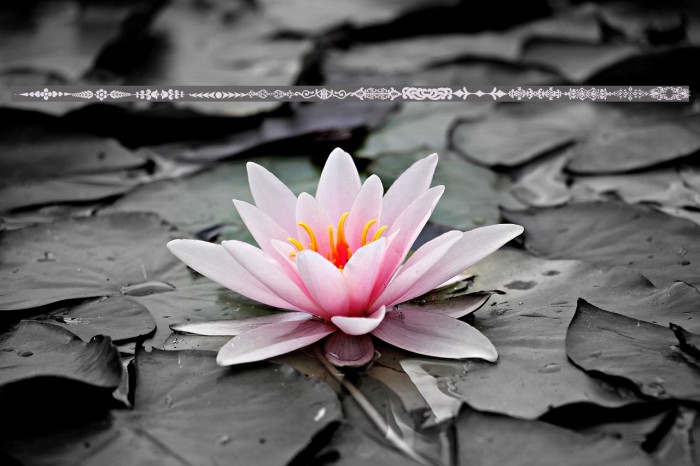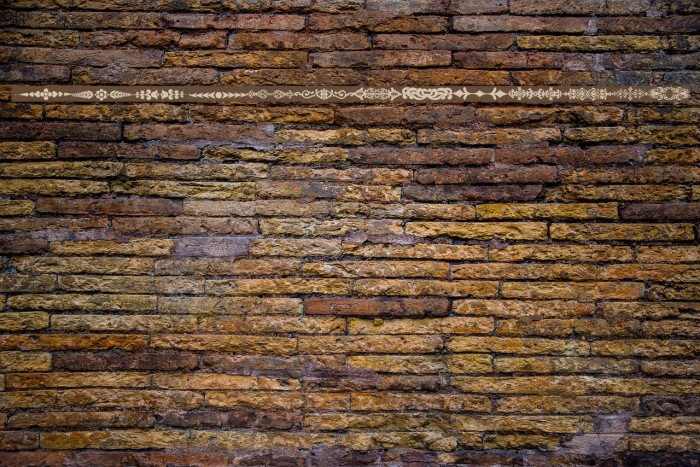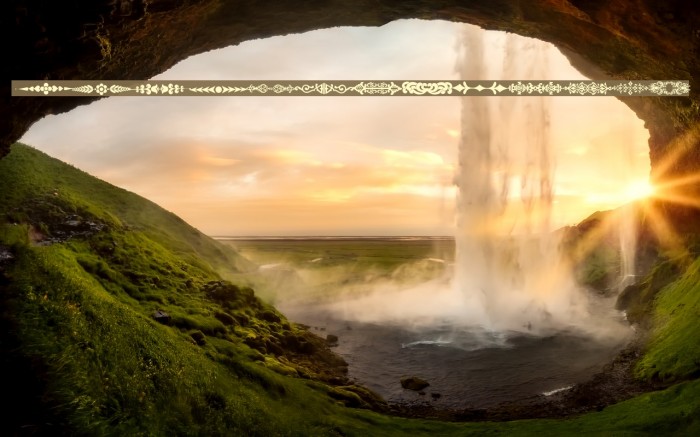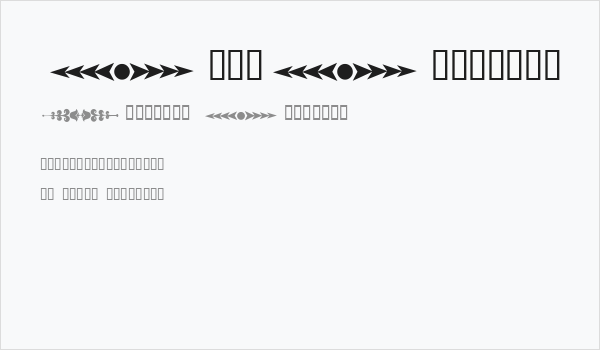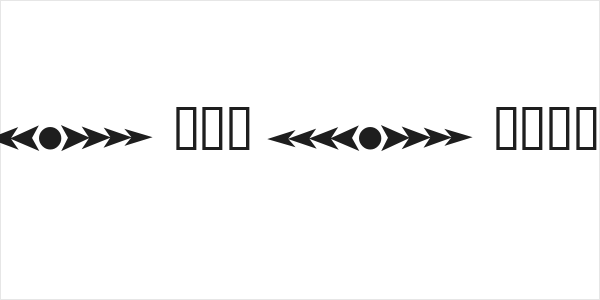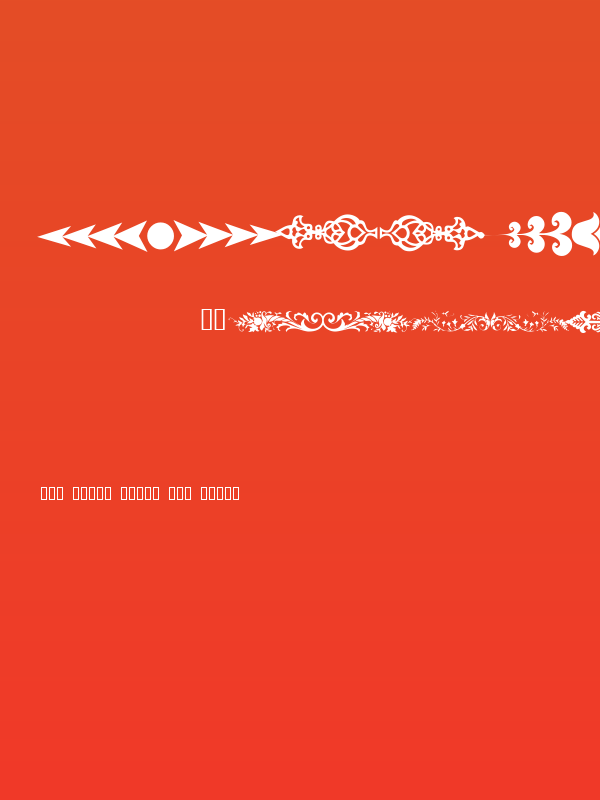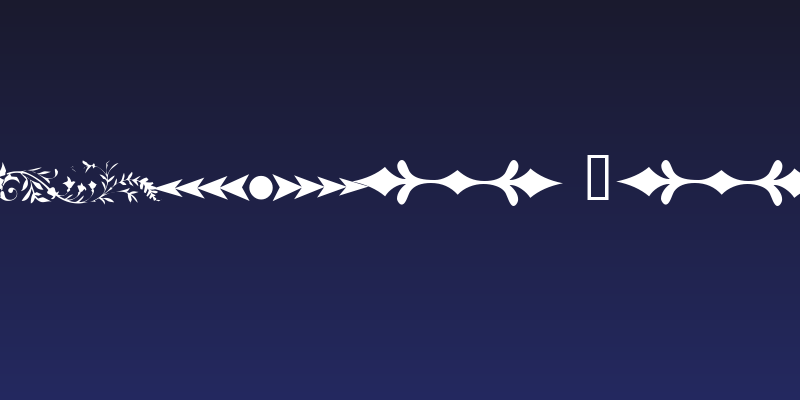
DecoDividers Font
DecoDividers Description
A decorative display font featuring ornate divider glyphs and intricate embellishments, with each character representing a unique ornamental line or flourish. The style is highly detailed and symmetrical, evoking vintage or classical aesthetics suitable for embellishing documents or designs.
Overall StyleDecorative, Vintage, Classic
Use CaseDividers, Borders, Decorative accents
Proposed ProjectsWedding invitations, certificates, book covers, event programs, decorative borders, vintage-themed designs.